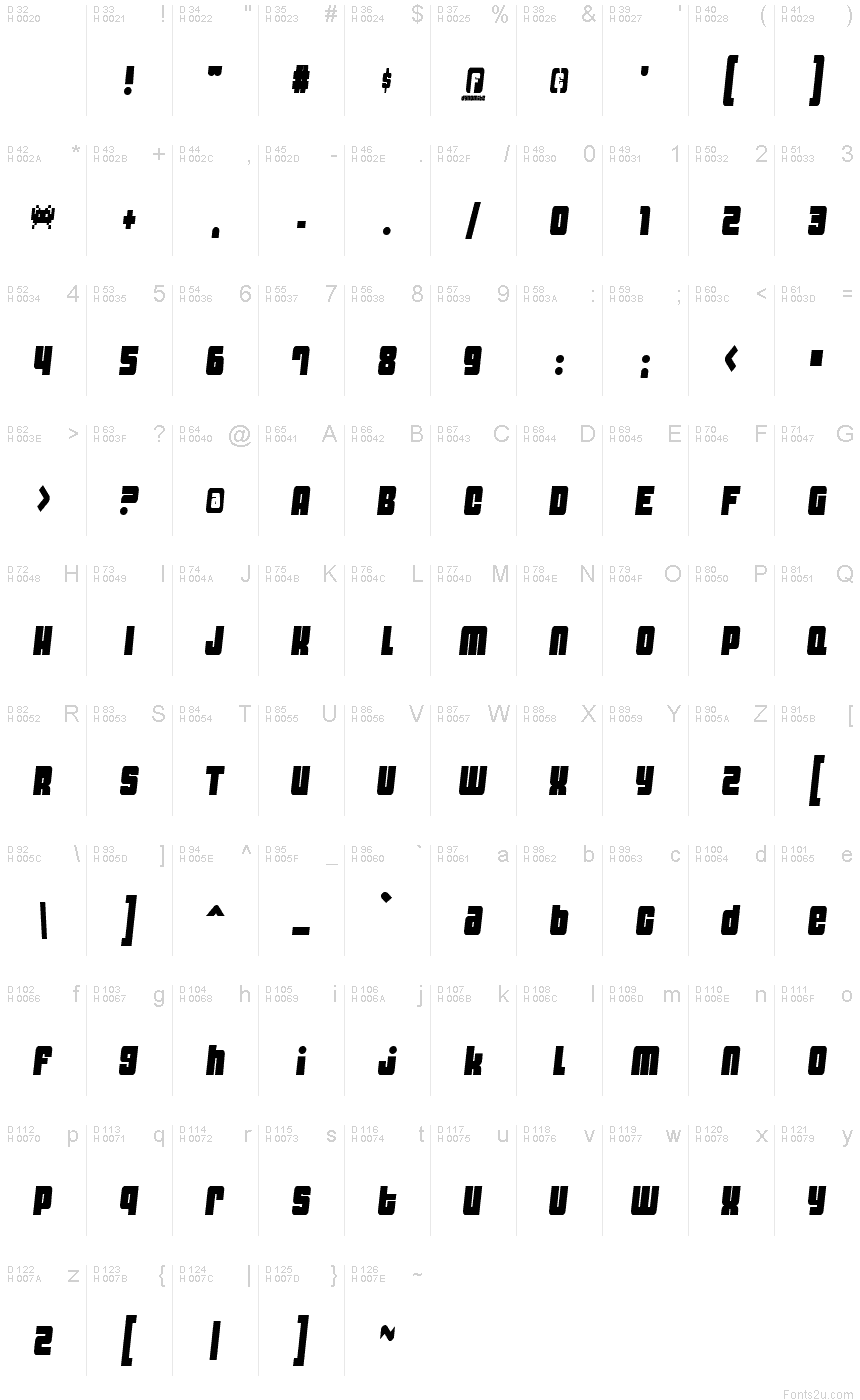
Dynomite Spark Thin from Fontalicious Fonts is a free condensed display sans with a hard forward slant and dense blocky strokes. Slim vertical openings and rounded outer corners sharpen the compressed industrial silhouette.
Posters make the most of this forceful construction in motorsport, action entertainment, and club events. The lettering feels fast even when standing still. It also suits athletic merchandise and venue signage, where the tight forms can echo racing stripes or machinery.